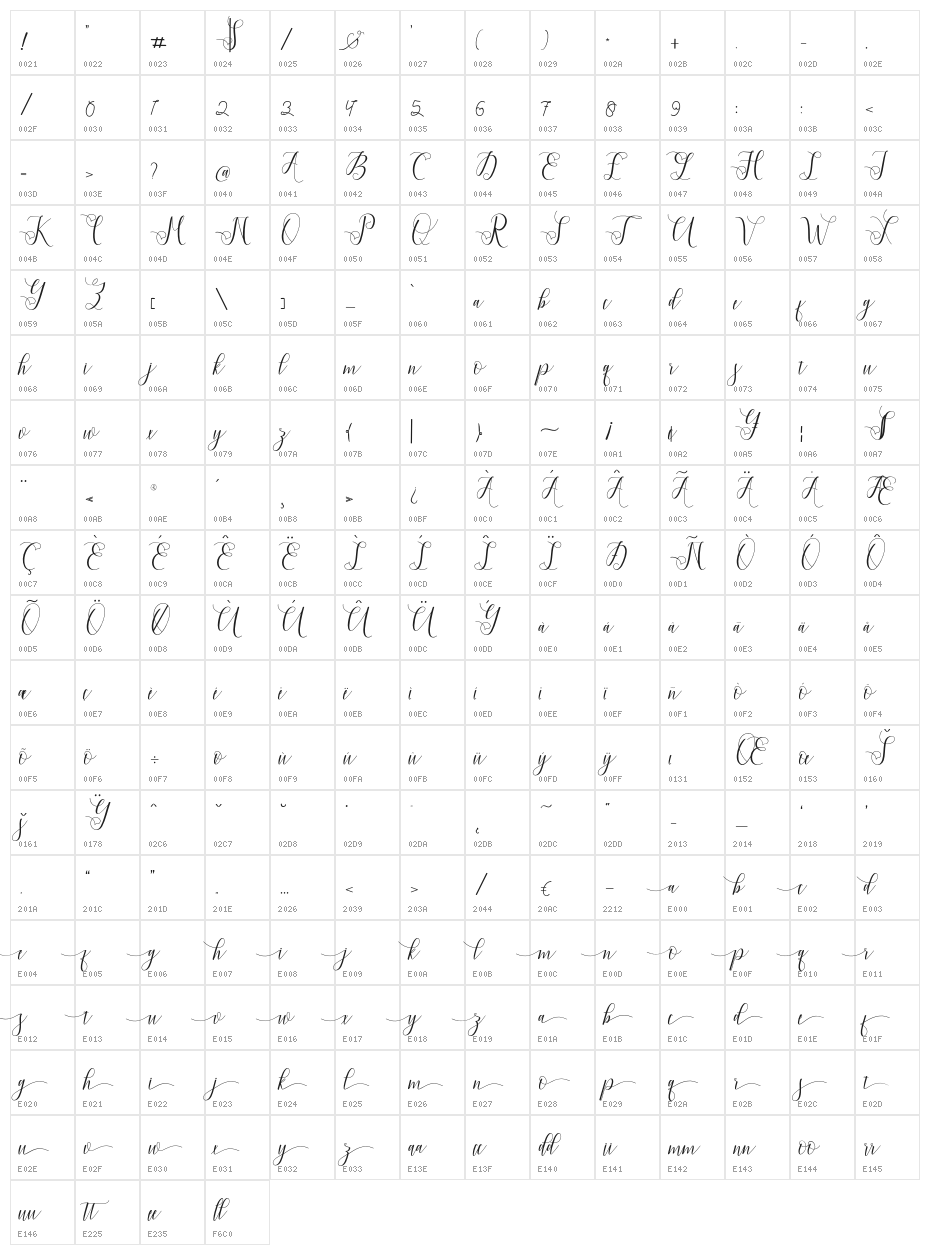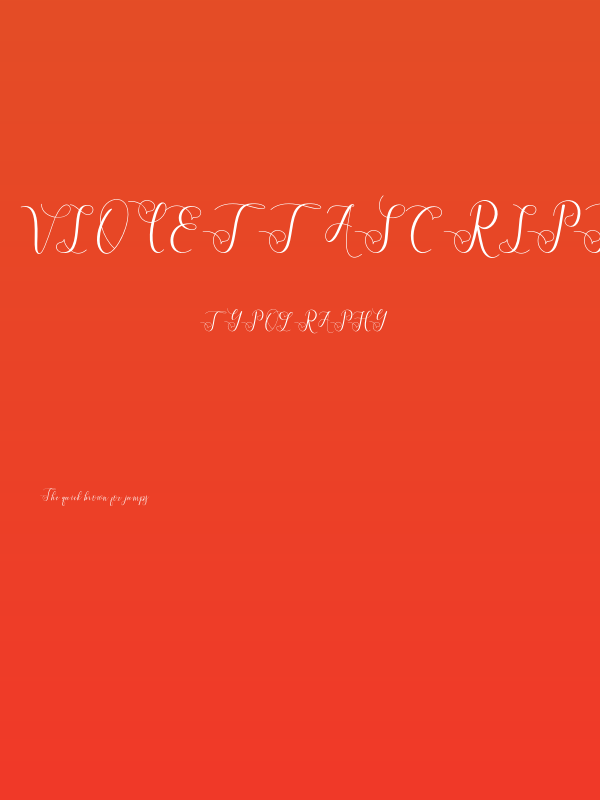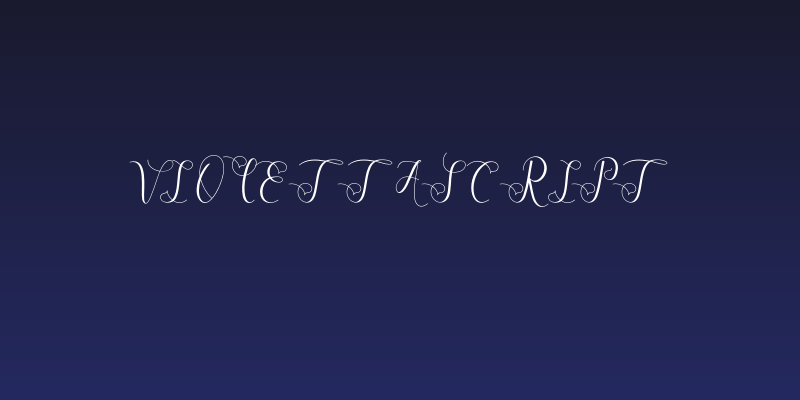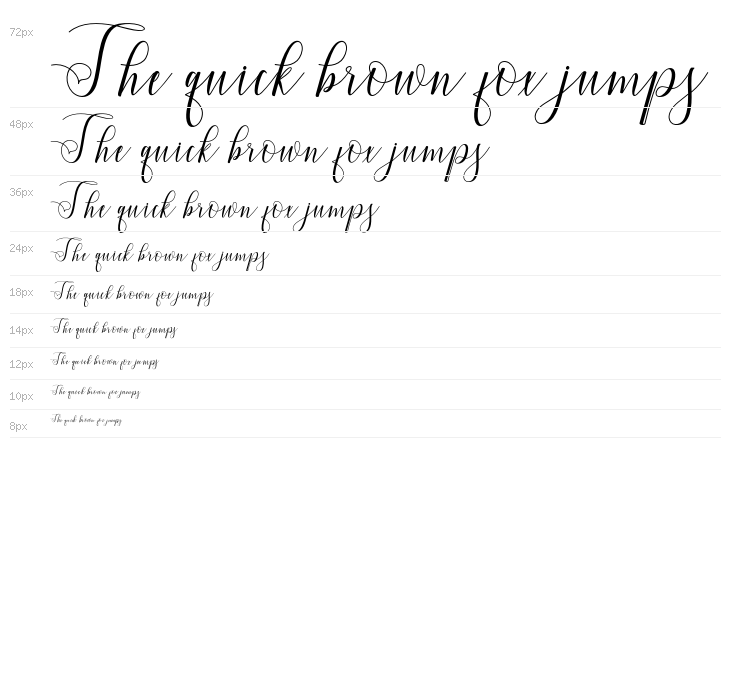
ViolettaScript Font
ViolettaScript Description
This elegant script font features flowing, interconnected letters with a classic and sophisticated appearance. The uppercase letters are adorned with intricate swashes and flourishes, adding a touch of luxury and refinement. The lowercase letters maintain a smooth, cursive style, ensuring readability while preserving the font's decorative nature. The numerals and special characters are designed to complement the overall aesthetic, with graceful curves and consistent line weight. This font exudes a sense of elegance and is perfect for projects that require a touch of class and sophistication.
| Overall Style | Classic |
| Use Case | Logos, Invitations, Decorative text |
| Proposed Projects | Ideal for wedding invitations, luxury branding, elegant stationery, and high-end product packaging. |